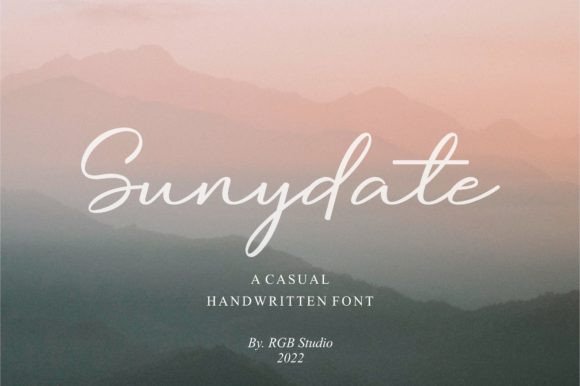
Embrace the Elegance of Sunydate, the Script Font Epitomizing Beauty
Meet Sunydate, a captivating script font born from the artistry of RGB Studio. This enchanting font exudes an air of casual charm, creating designs that are wonderfully down-to-earth, effortlessly readable, and infinitely versatile.
With Sunydate, you hold the key to unlocking a world of creative possibilities. Let your imagination roam free as you design stunning flyers that captivate and engage your audience. Craft visually striking social media posts that demand attention and leave a lasting impression. Create elegant wedding invitations that reflect the joy and love of your special day.
As a script font, Sunydate possesses an inherent charm that adds a touch of sophistication and allure to your designs. Its casual nature makes it universally appealing, while its readability ensures that your message is conveyed with clarity and impact.
Sunydate's versatility knows no bounds. Its graceful lines and flowing curves lend themselves perfectly to a multitude of design applications. From delicate branding elements to bold headlines, Sunydate effortlessly adapts to your creative vision, adding a touch of elegance and charm to every project.
Discover the endless possibilities of Sunydate and embark on a creative journey that knows no limits. Let its beauty elevate your designs and leave an unforgettable impression on your audience.
Unlock Sunydate's Potential and Unleash Your Creativity
Embark on a creative expedition with Sunydate, a script font that ignites your imagination and transforms your designs into captivating works of art. Its casual charm and universal appeal make it the perfect choice for a wide range of projects, from personal to professional.
Indulge in the artistry of Sunydate and let its elegant lines and flowing curves elevate your designs. Create flyers that command attention, social media posts that spark engagement, and wedding invitations that exude timeless elegance.
As a script font, Sunydate possesses an inherent charm that adds a touch of sophistication and allure to your designs. Its casual nature makes it universally appealing, while its readability ensures that your message is conveyed with clarity and impact.
With Sunydate, you hold the key to unlocking a world of creative possibilities. Embrace its versatility and let your imagination soar as you create designs that captivate and inspire.
Step into the world of Sunydate and immerse yourself in its enchanting beauty. Experience the joy of creating designs that leave a lasting impression and embark on a creative journey that knows no limits.